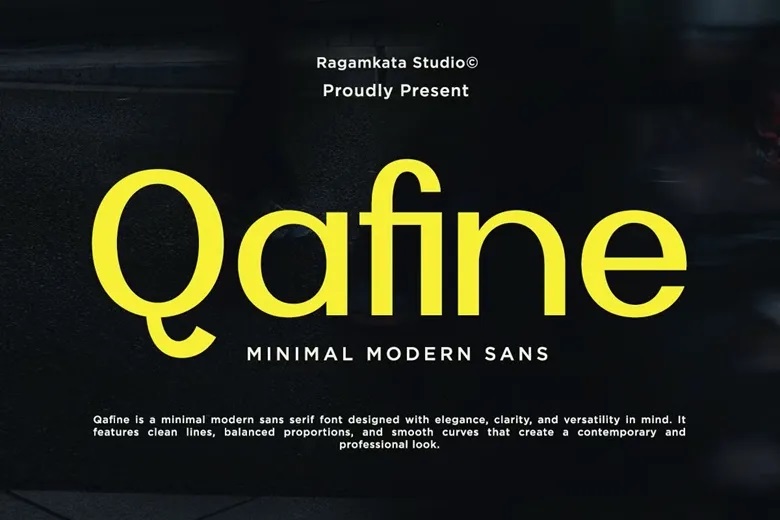
Qafine Font
Qafine is a simple modern, sans serif typeface with a sense of elegance, clarity, and versatility. It is characterized by clean lines, proportions, and rounded curves, which provide modern and professional appearance. Qafine is designed in such a way that it is easy to use in both the digital and print media, which makes it a worthwhile option when it comes to a current style requirement.
The font has fashionable ligatures, which give a sophisticated typography and enhance the visual flow, particularly in branding and use of headlines. It’s bold brand or clean editorial: Qafine provides a confident and modern look regardless of your intent.
Qafine Sans Serif Font